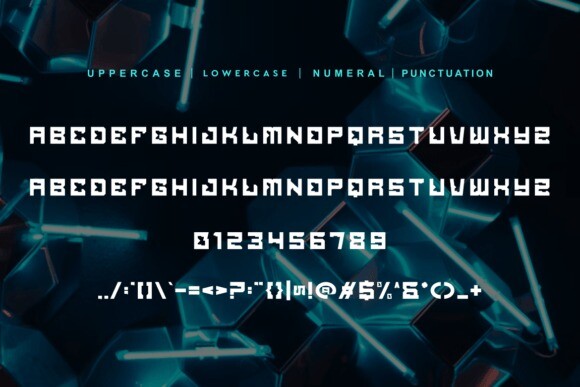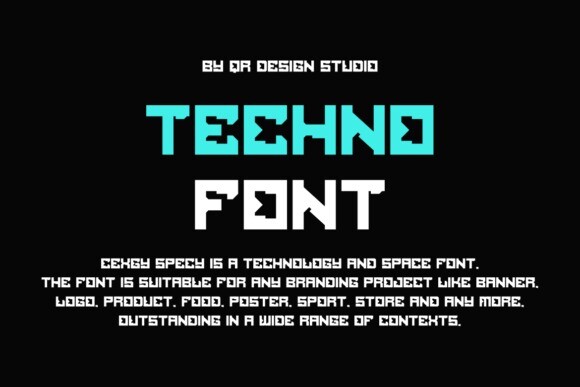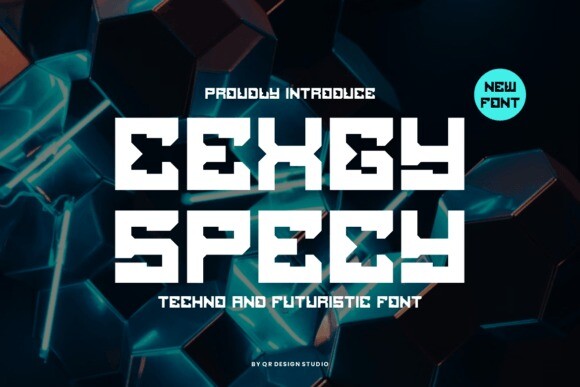
Cexgy Specy Font
Designer: qrdesignstd
Cexgy Specy Font is a modern and cool display font. Its clean lines and contemporary design make it ideal for headlines, posters, and branding projects.